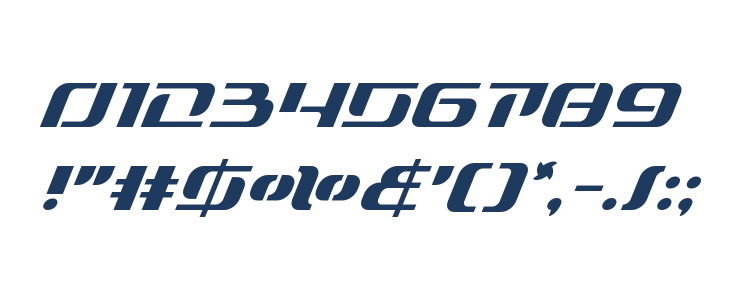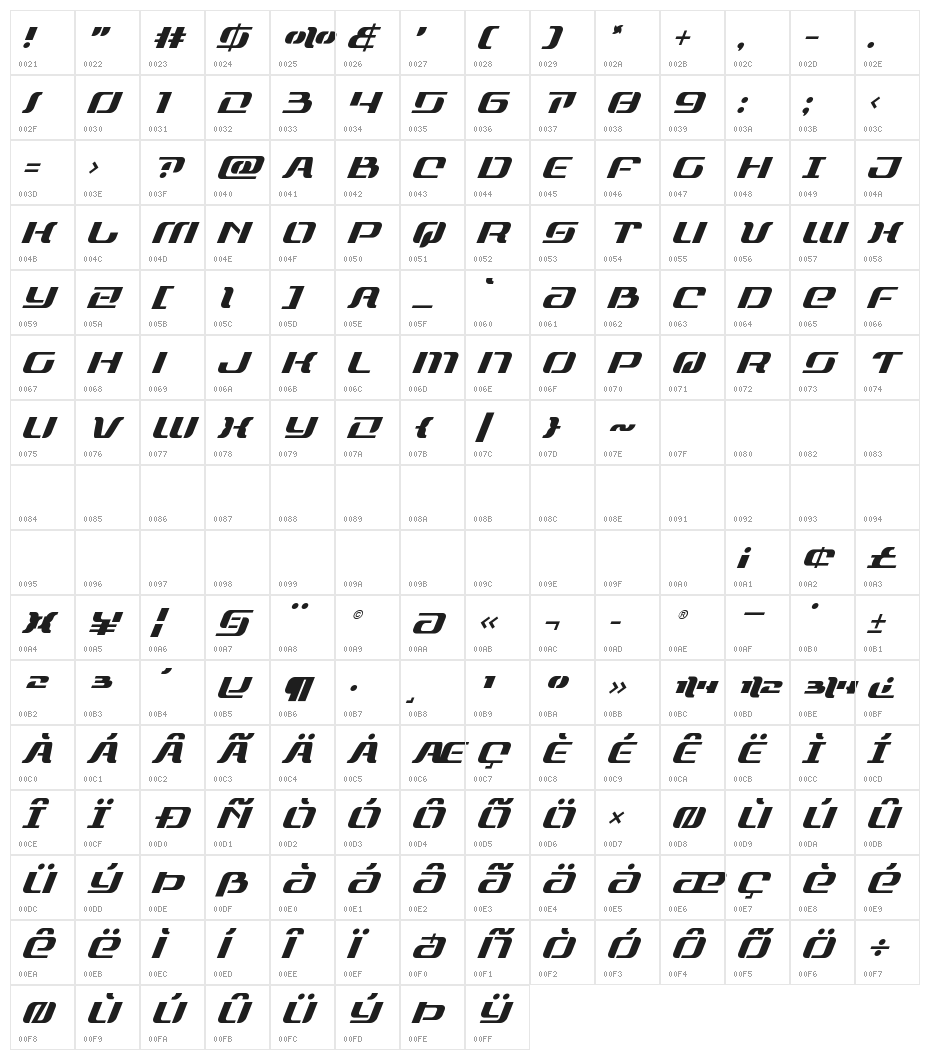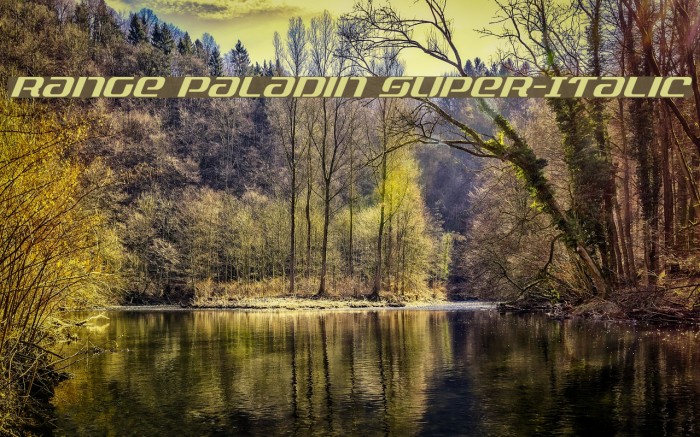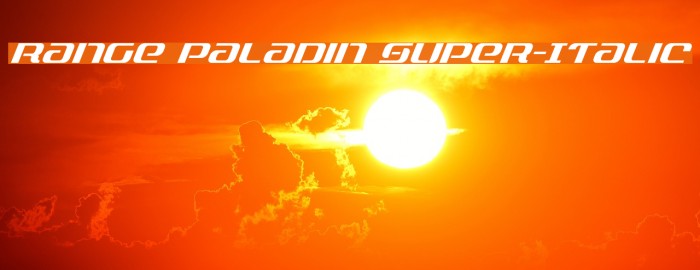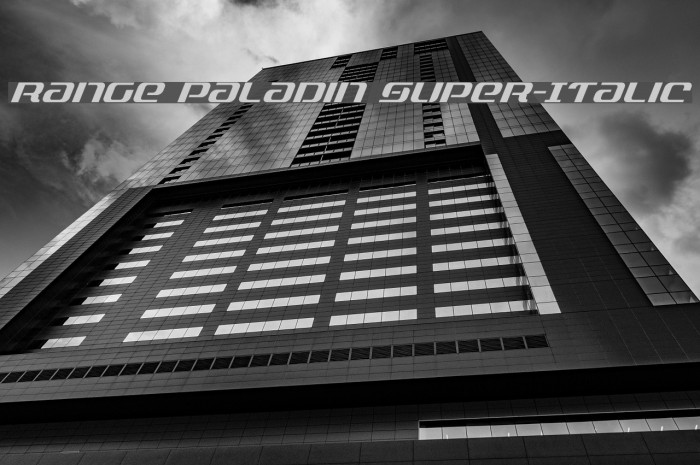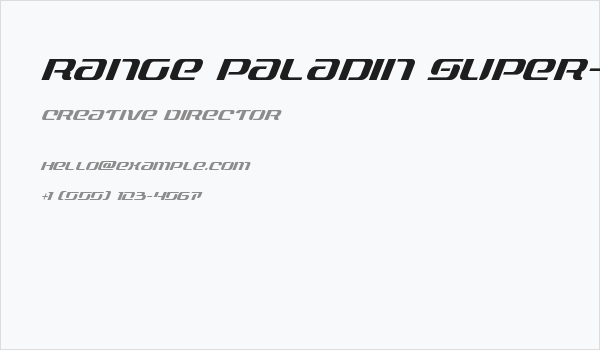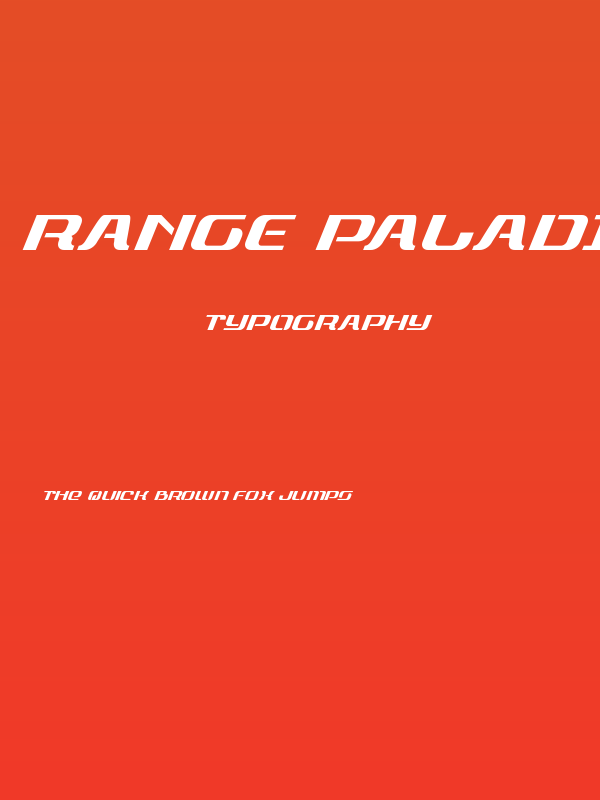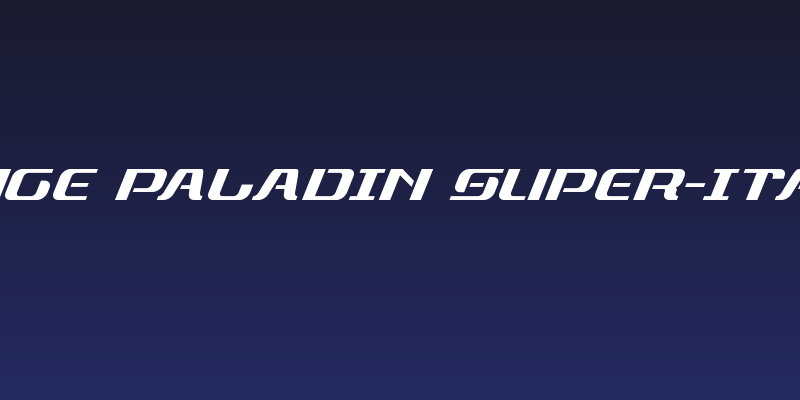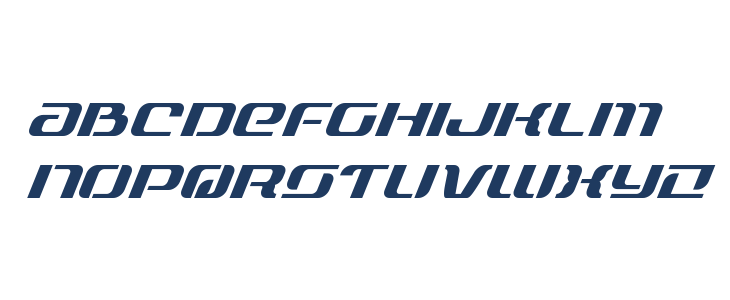
Range Paladin Super-Italic Font
Range Paladin Super-Italic Description
This font exhibits a dynamic and futuristic style with its sharp, angular lines and italicized slant. The characters are bold and have a distinct forward-leaning posture, giving a sense of motion and speed. The design features a high contrast between thick and thin strokes, enhancing its modern and sleek appearance. The uppercase and lowercase letters maintain a consistent style, with unique geometric elements that add a touch of sophistication. The numerals and special characters are equally stylized, ensuring uniformity across all glyphs.
Use CaseLogos, Headlines, Branding
Proposed ProjectsIdeal for projects requiring a modern and energetic look, such as technology branding, sports team logos, or sci-fi themed designs.